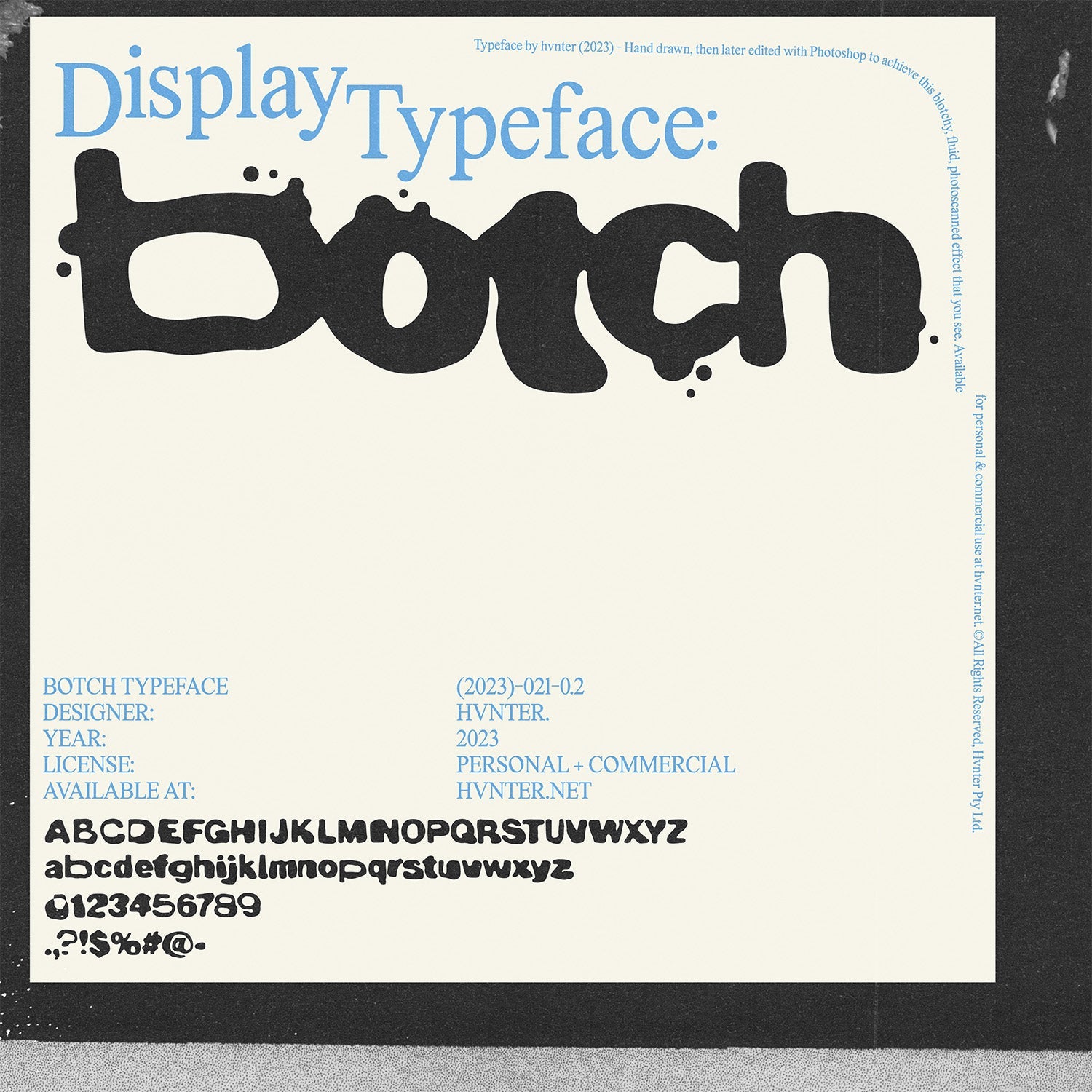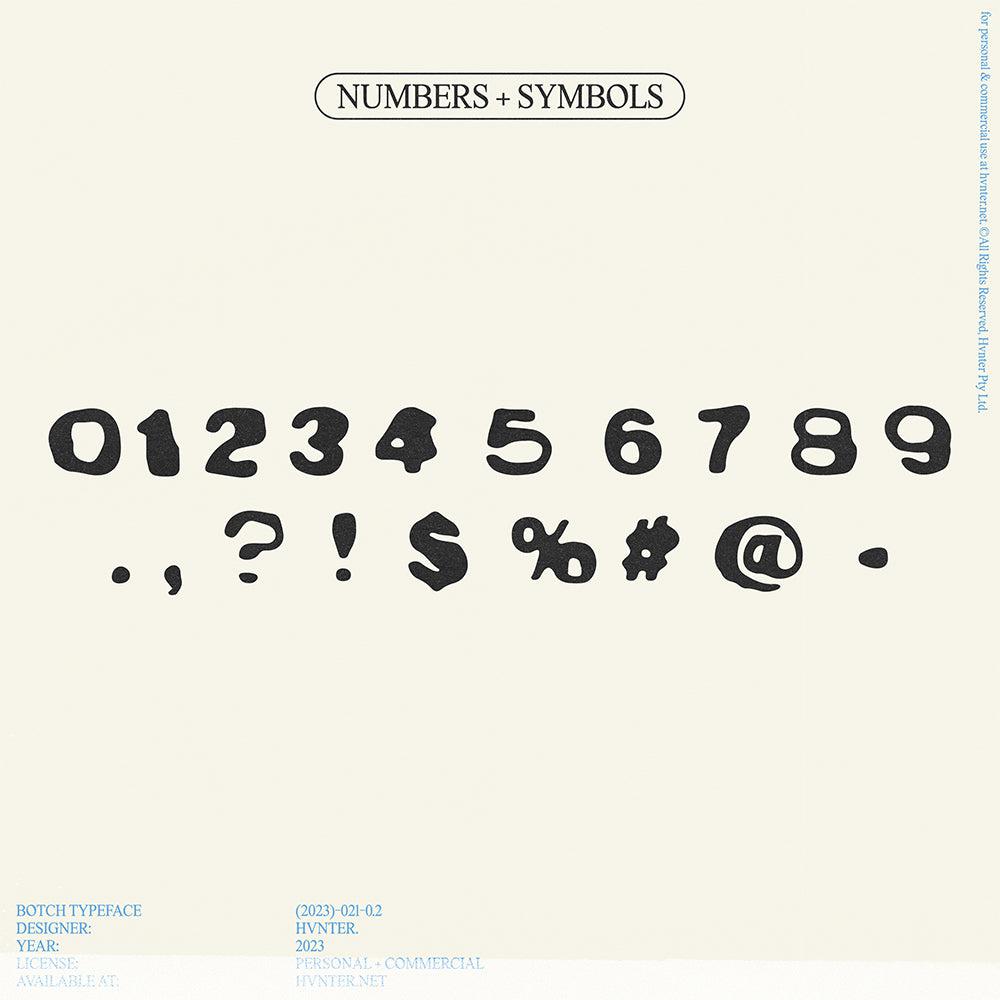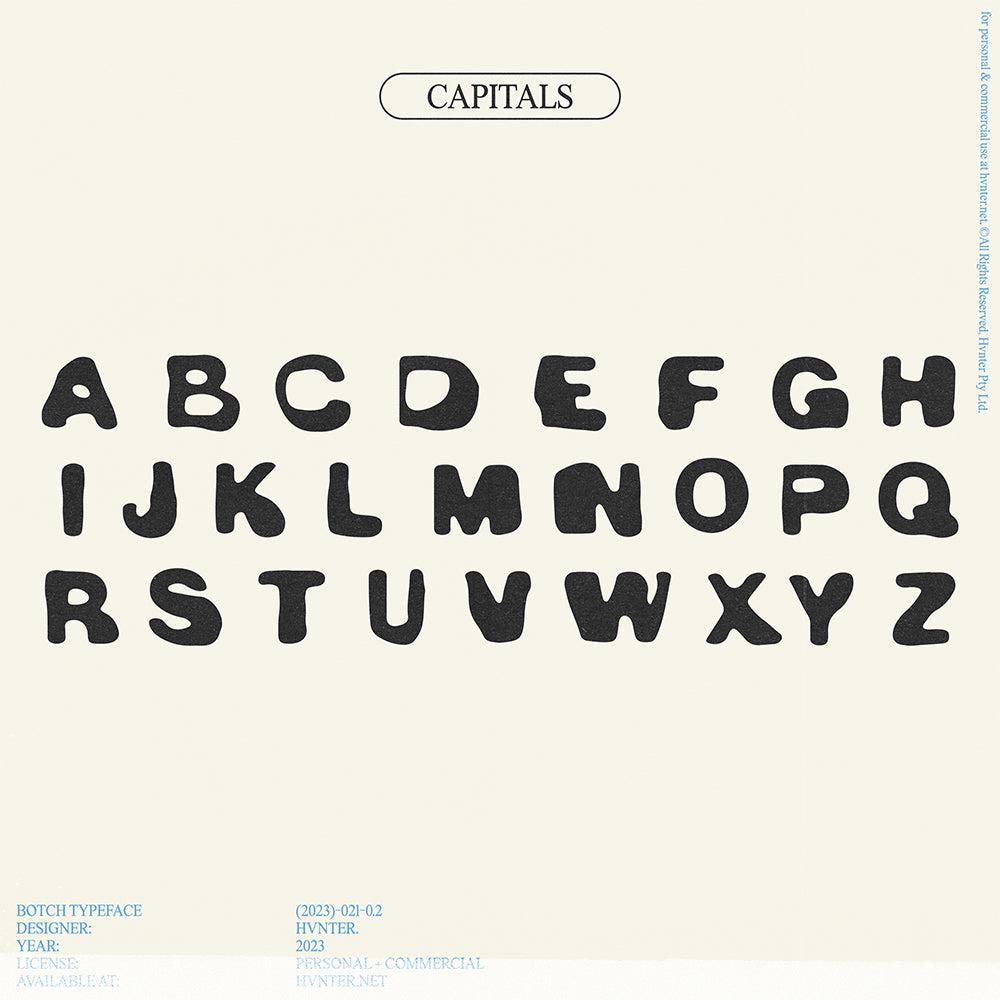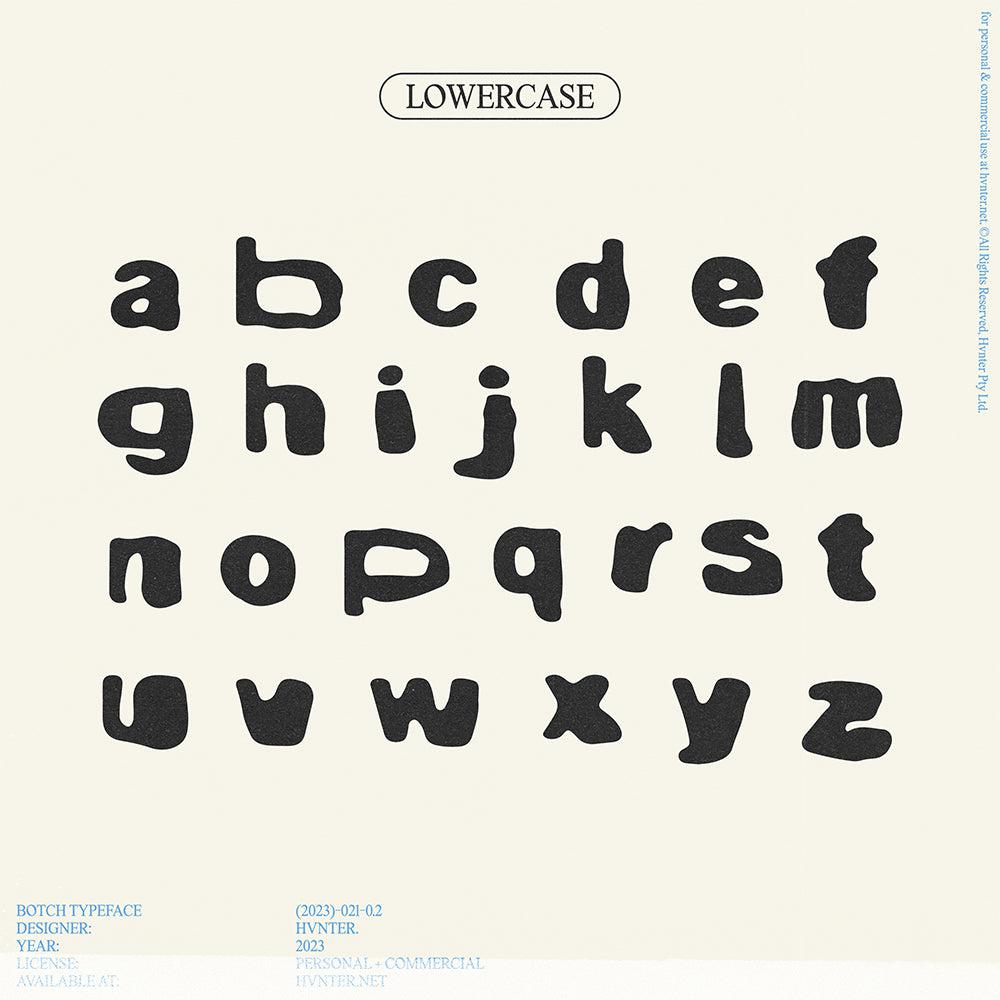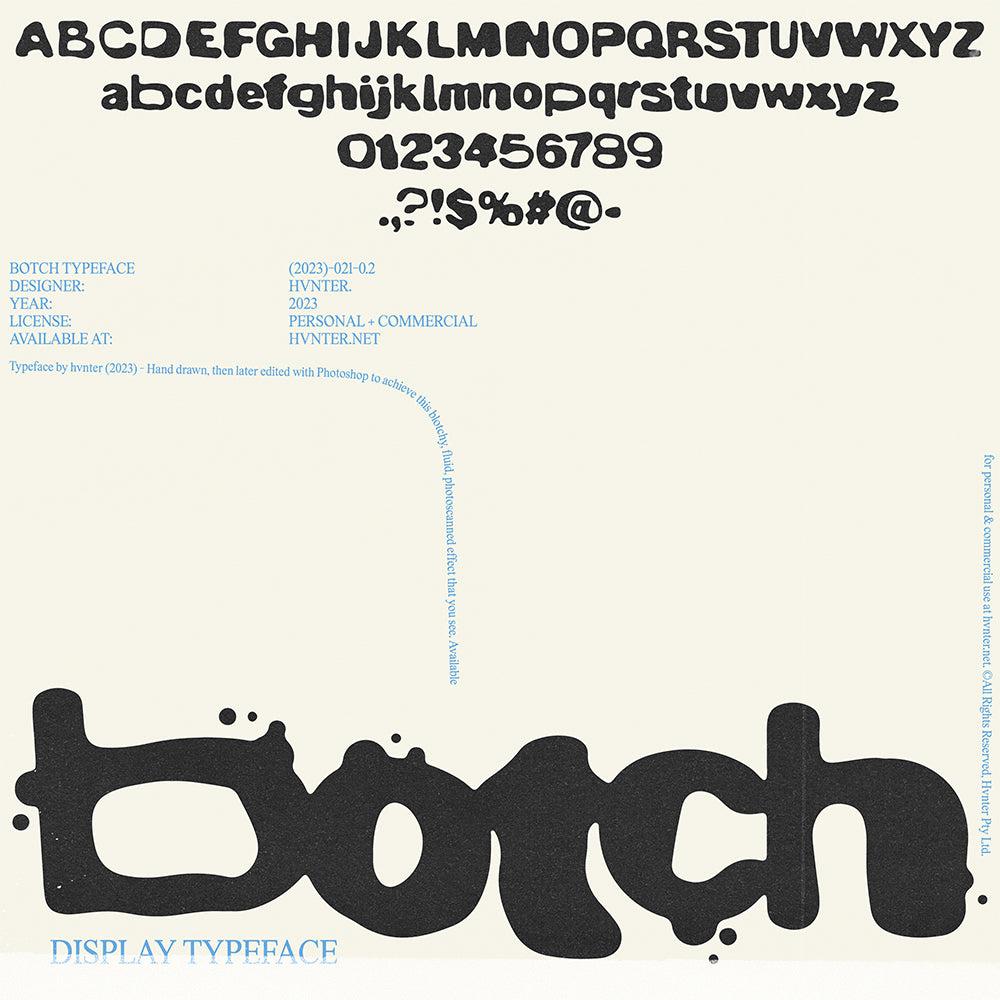
BOTCH Typeface
Bubbly, organic letter forms! :D Includes A-Z, a-z, 0-9 + basic symbols (.otf font file)
The BOTCH Typeface is a bubbly, organic font that includes a complete set of upper and lower case letters, numbers 0-9, and basic symbols. It's a grunge-style, hand-drawn display font that fits into the streetwear and Y2K aesthetic.